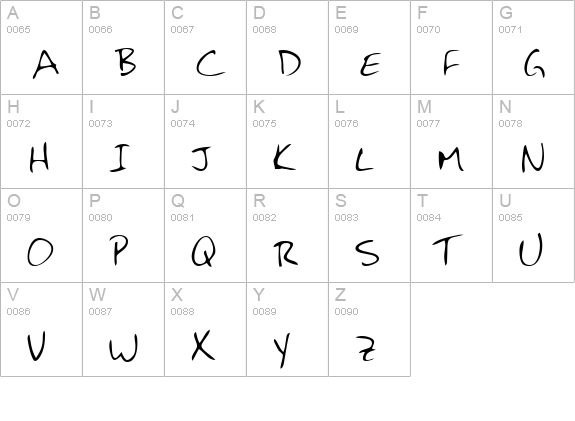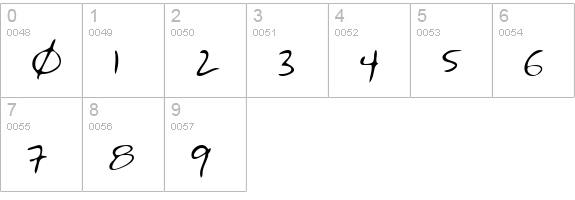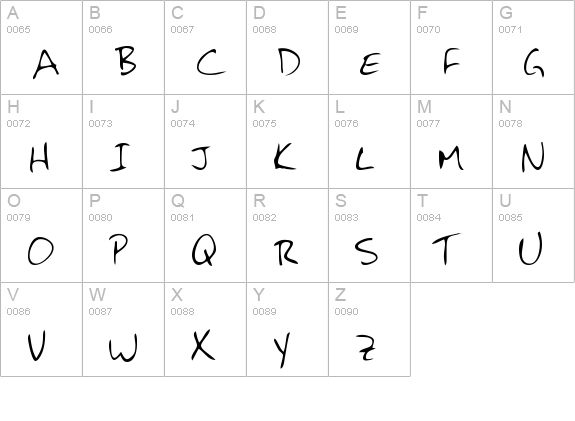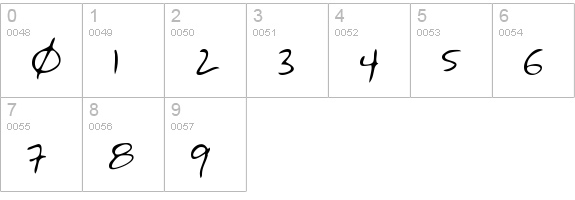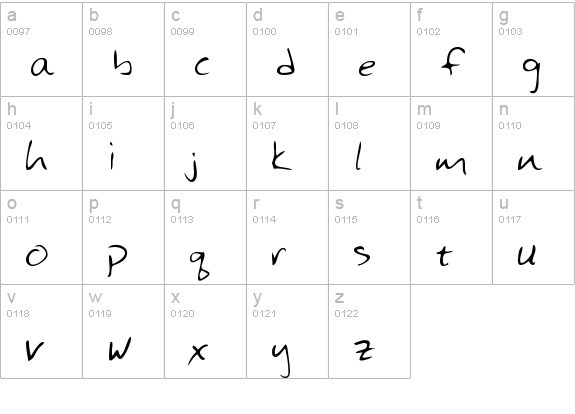
HansonsHand Regular Font Details
HansonsHand Regular is the standard, neutral variant in the HansonsHand typeface family \xE2\x80\x94 well suited to general body text, paragraphs, and standard typographic work.
HansonsHand Regular font is a delightful and charming typeface that exudes a sense of playfulness and authenticity. Designed with precision and attention to detail, this font captures the essence of hand-drawn lettering, making it perfect for a variety of creative projects. The smooth curves and thick strokes of HansonsHand Regular font give it a welcoming and approachable feel, making it ideal for anything from personal invitations to professional branding. Whether you're designing a logo, creating a greeting card, or crafting a unique headline, this versatile font will bring your ideas to life with its unique character. One of the best features of HansonsHand Regular font is that it is available for free download at FontsMarket.com. This means that you can easily access and use this font in your designs without any hassle or cost. With just a few clicks, you can enhance your projects with the warmth and personality that only HansonsHand Regular font can provide. So why wait? Don't miss out on the opportunity to elevate your designs with this fantastic typeface. Download HansonsHand Regular font for free at FontsMarket.com and let your creativity soar. Whether you're a professional designer or a hobbyist, this font is sure to become a valuable addition to your font library.